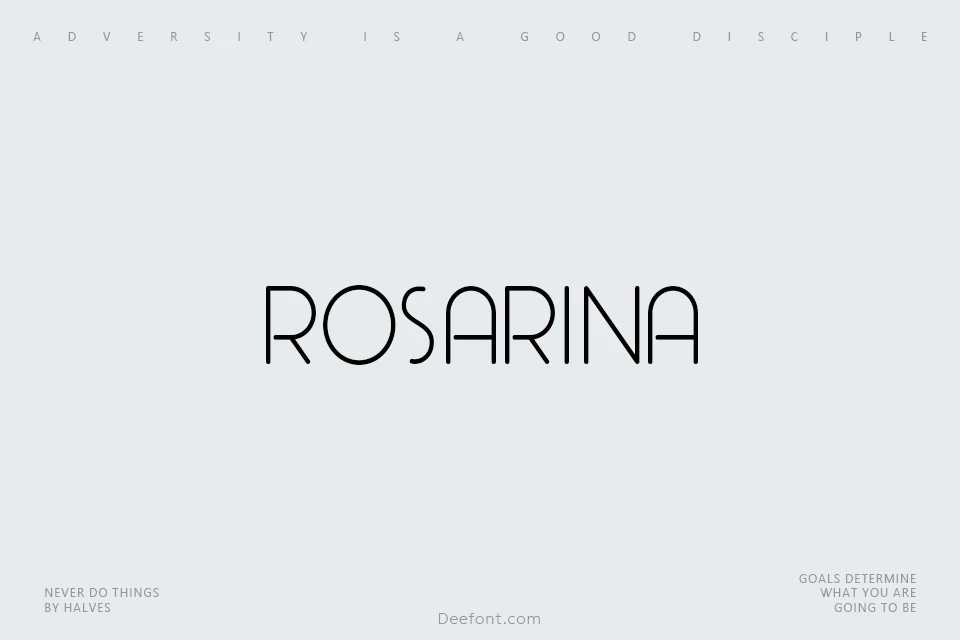
Rosarina Font
Rosarina Font is a sleek and minimalist sans serif font that exudes elegance and sophistication. With its clean lines and modern aesthetic, Rosarina is perfect for a wide range of design projects, including branding, editorial layouts, packaging, and digital content. Its refined letterforms and balanced proportions make it highly versatile, offering both style and readability. Whether used for bold headlines or subtle body text, Rosarina brings a touch of class to any creative endeavor. This free font is an excellent choice for designers seeking a timeless yet contemporary typeface to elevate their work with simplicity and grace.